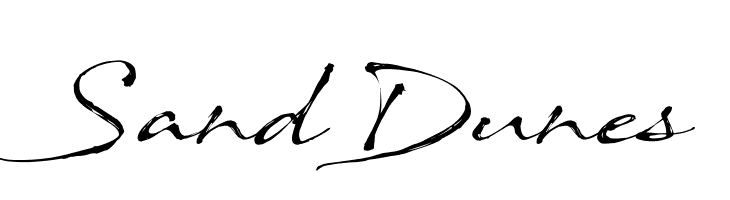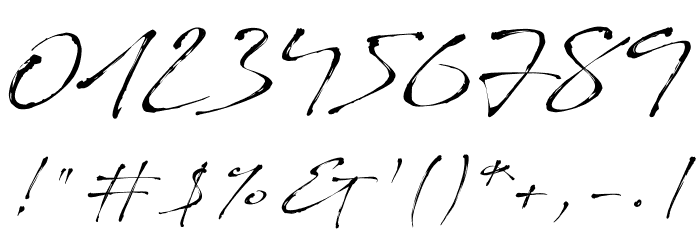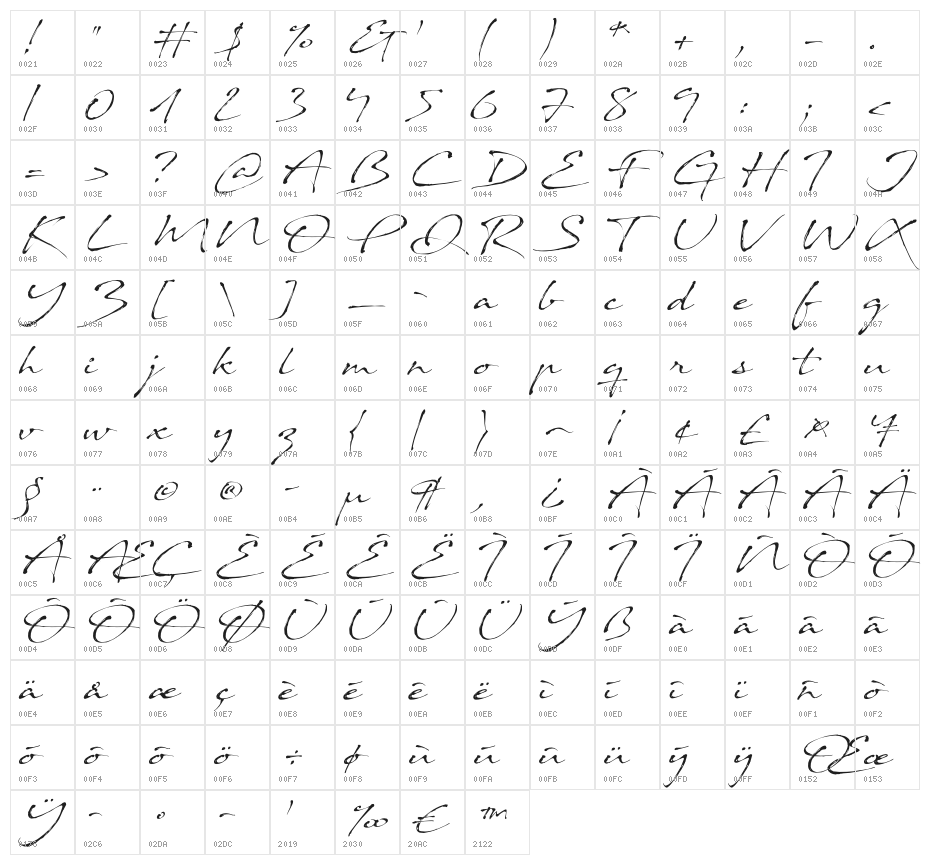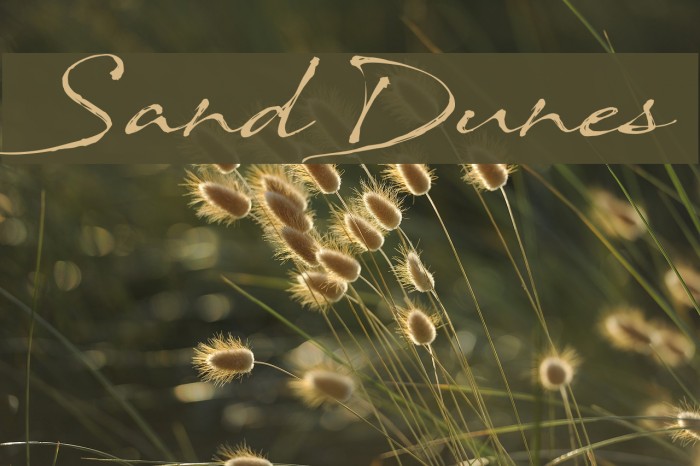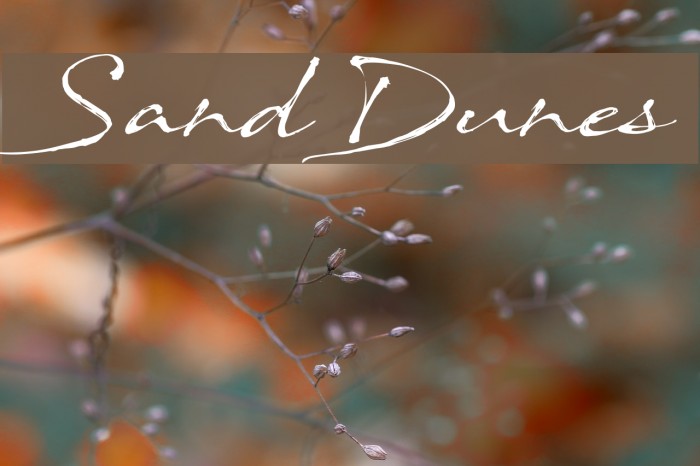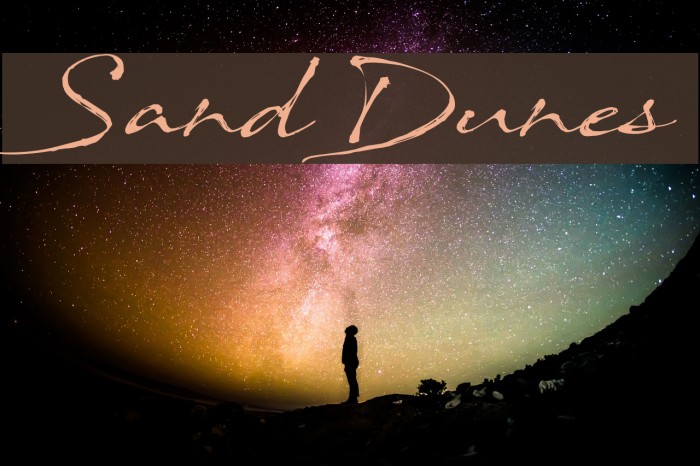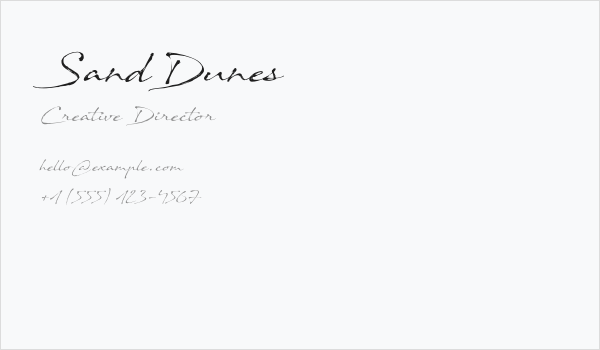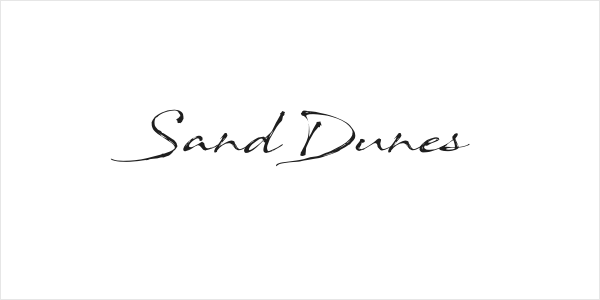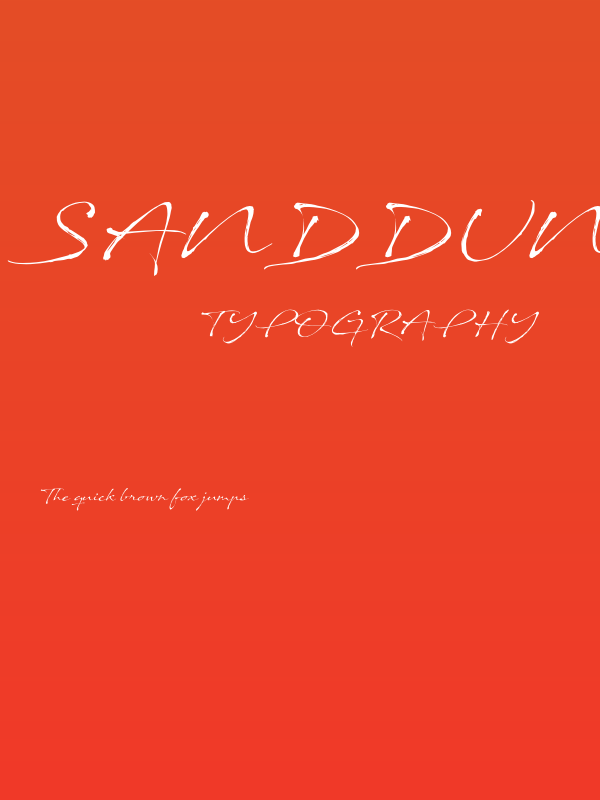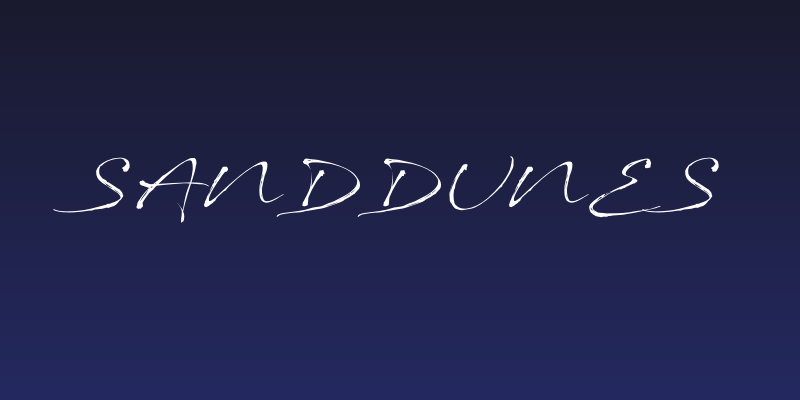
SandDunes Font
SandDunes Description
This font exudes a dynamic and expressive style, characterized by its fluid, cursive strokes that mimic the natural flow of handwriting. The letters are elegantly elongated with varying stroke thickness, creating a sense of movement and grace. The uppercase letters are slightly more structured, while the lowercase letters maintain a casual, freeform appearance. The numerals and special characters are consistent with the overall handwritten aesthetic, adding to the font's versatility. This font is perfect for projects that require a personal touch, such as invitations, greeting cards, or artistic branding.
| Proposed Projects | Ideal for invitations, greeting cards, artistic branding, and personal projects. |